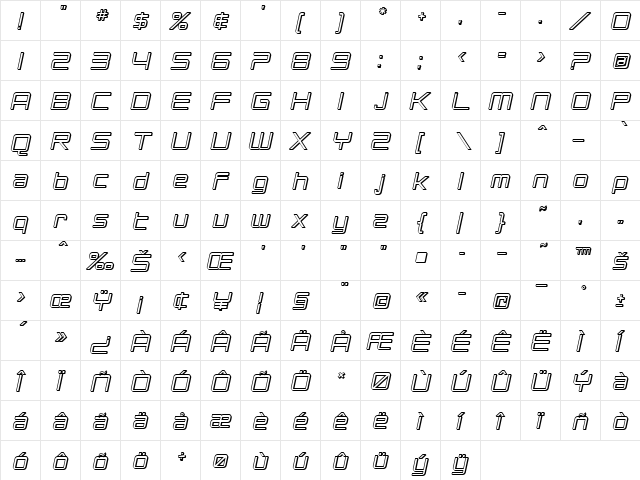
SF Chromium 24 Oblique
Design Context for SF Chromium 24 Typeface
SF Chromium 24 is a composed and adaptable typeface that performs quietly and consistently across a wide range of design contexts. Its italic angle brings a sense of urgency and motion to the letterforms.
Pro Tip: Use SF Chromium 24 for emphasis, pull quotes, and subheadings where its slanted energy can add rhythm to the layout.